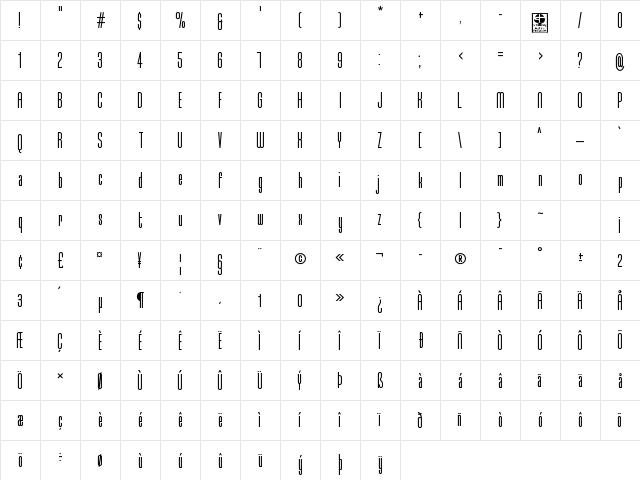
Typo-Longest Demo Regular
| Foundry | StudioTypo |
| Designer | Mehmet Abac |
Design Context for Typo-Longest Demo Typeface
Typo-Longest Demo takes a measured approach to typography — its balanced proportions and neutral character make it a reliable workhorse for both digital and print work.